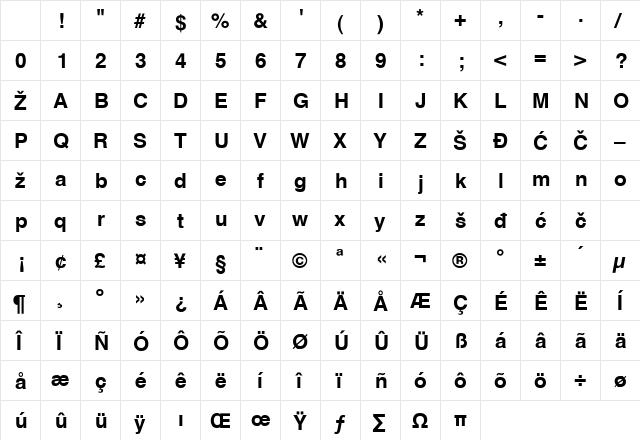
Complete HelveticaYu Bold glyph index. Displaying only characters natively supported by HelveticaYu Bold font.
HelveticaYu is a composed and adaptable typeface that performs quietly and consistently across a wide range of design contexts. Its bold stroke weight gives it real presence on the page.